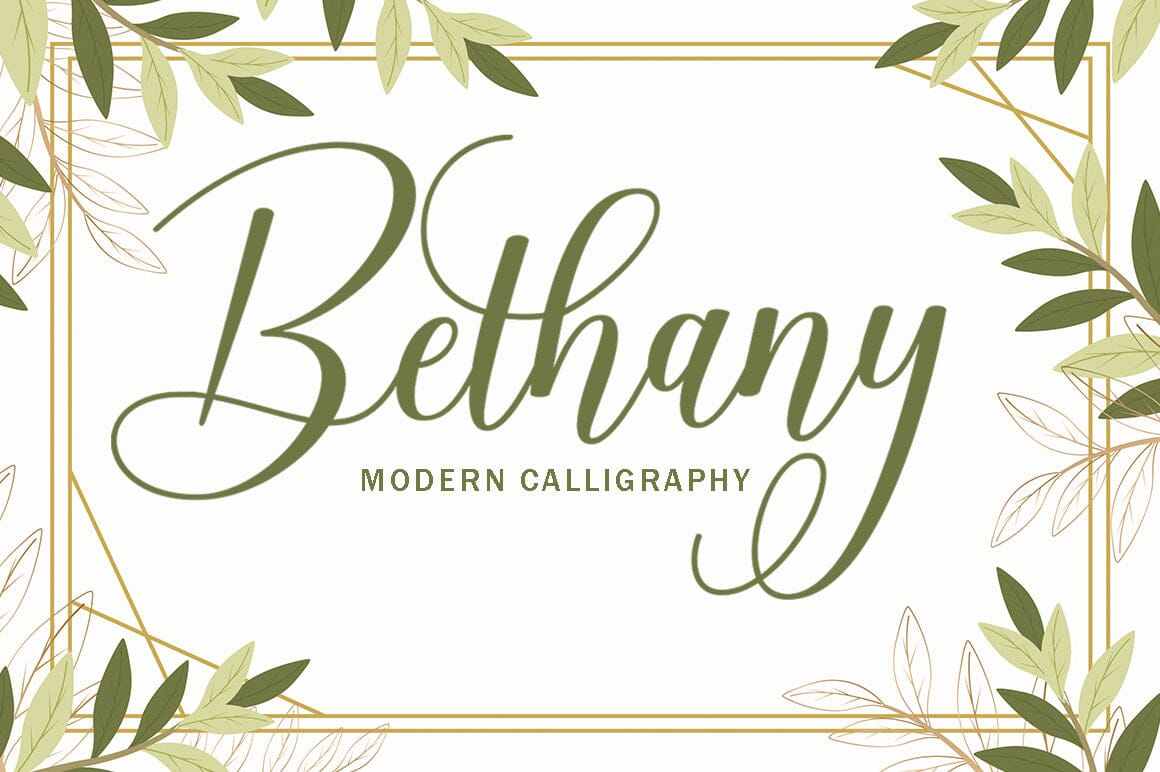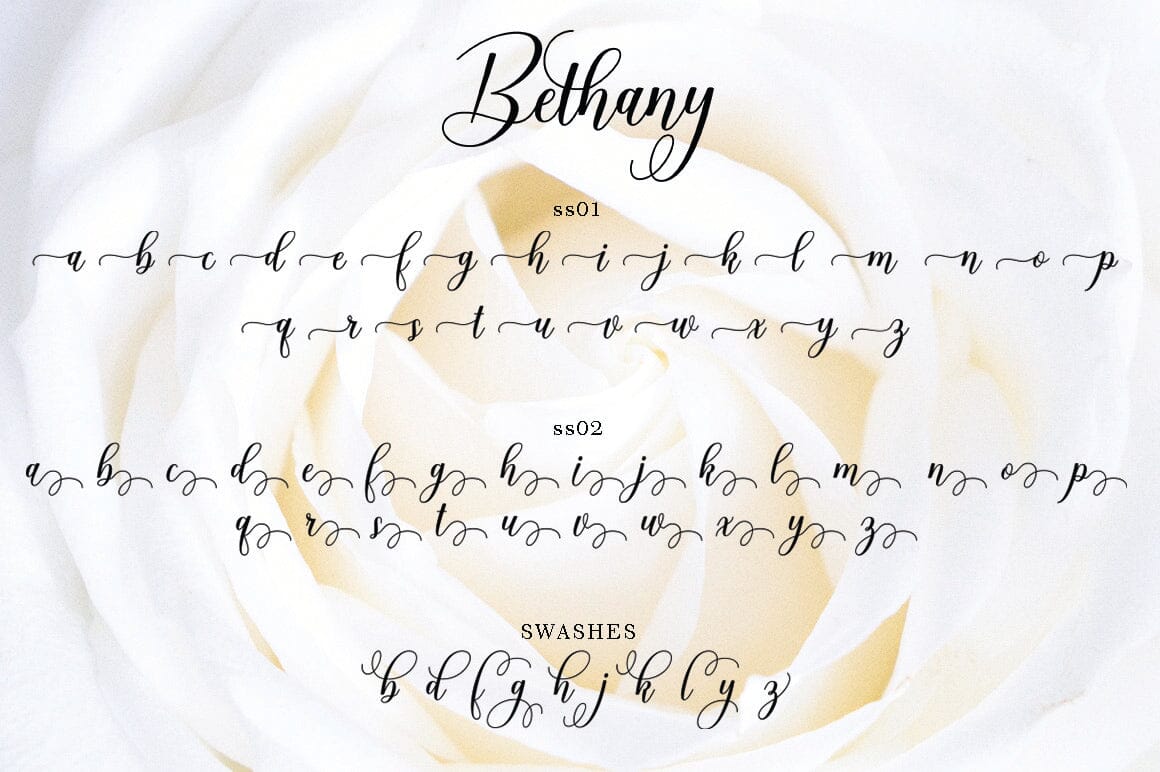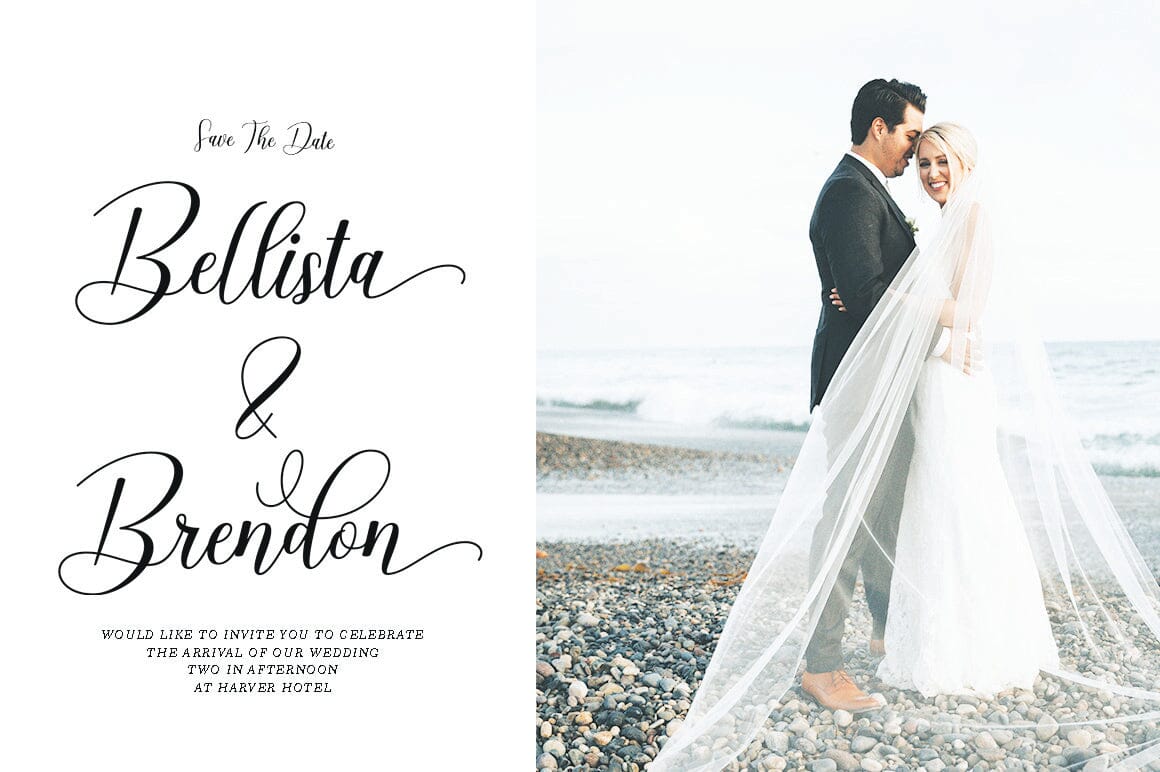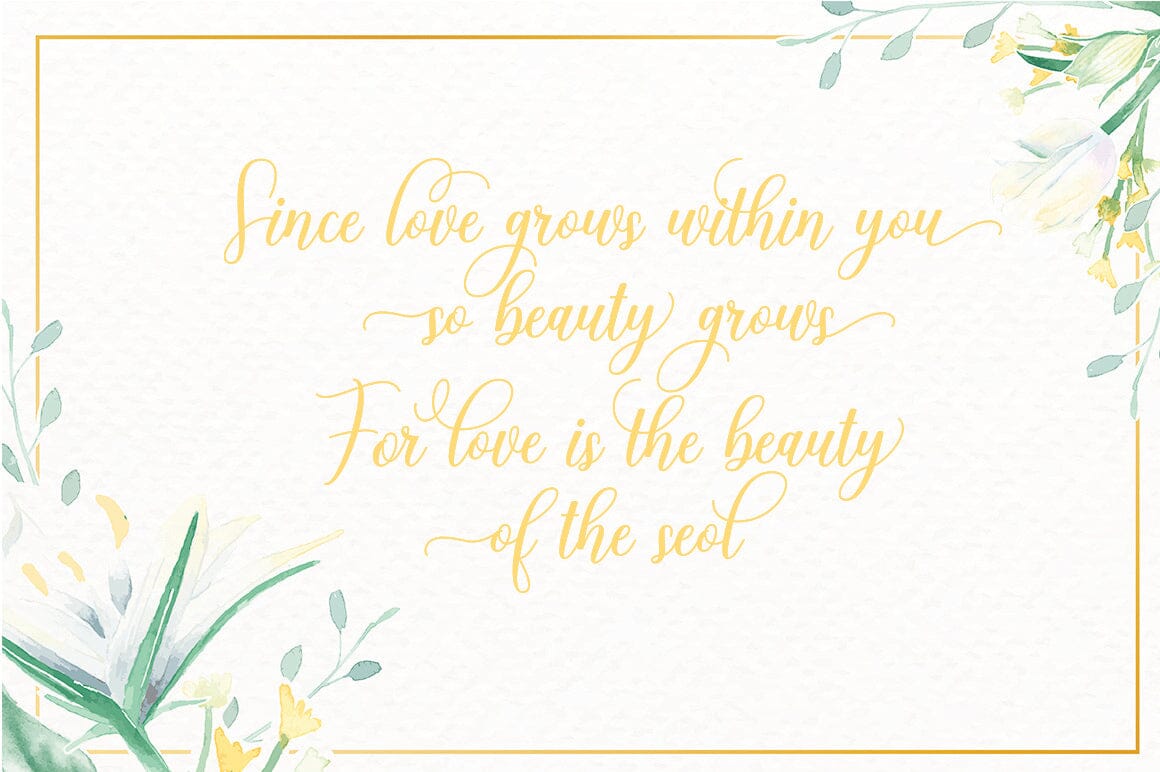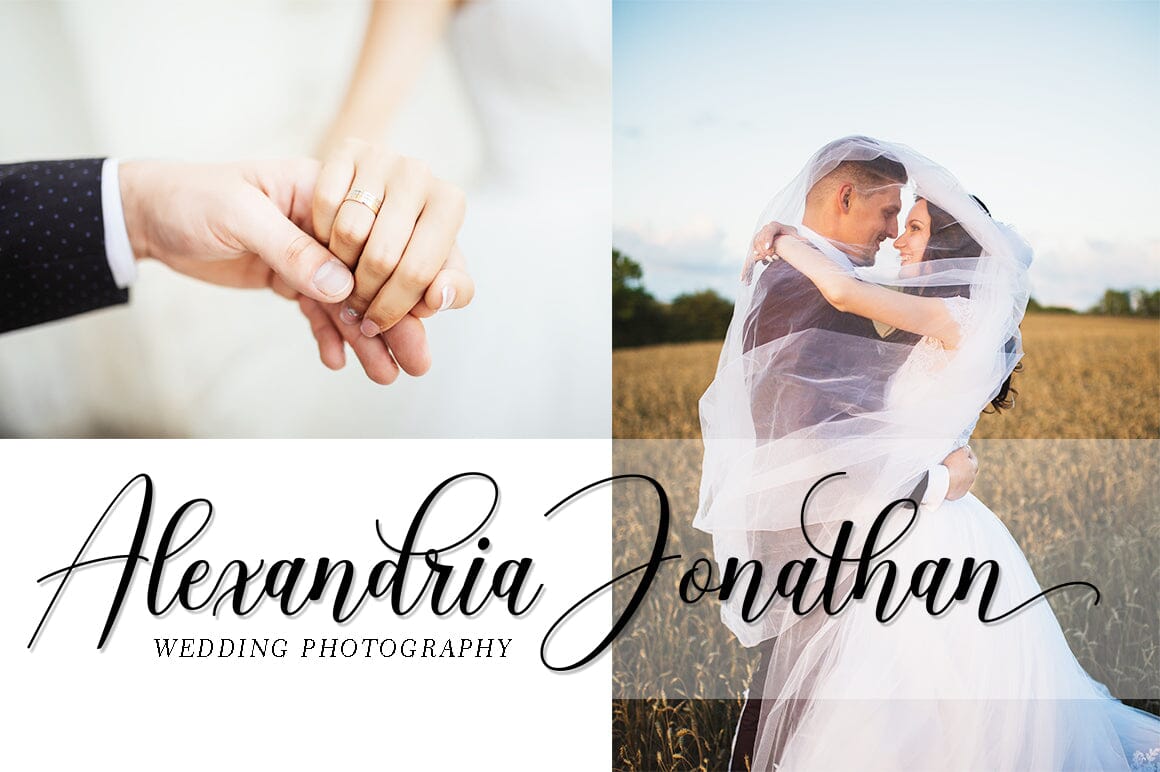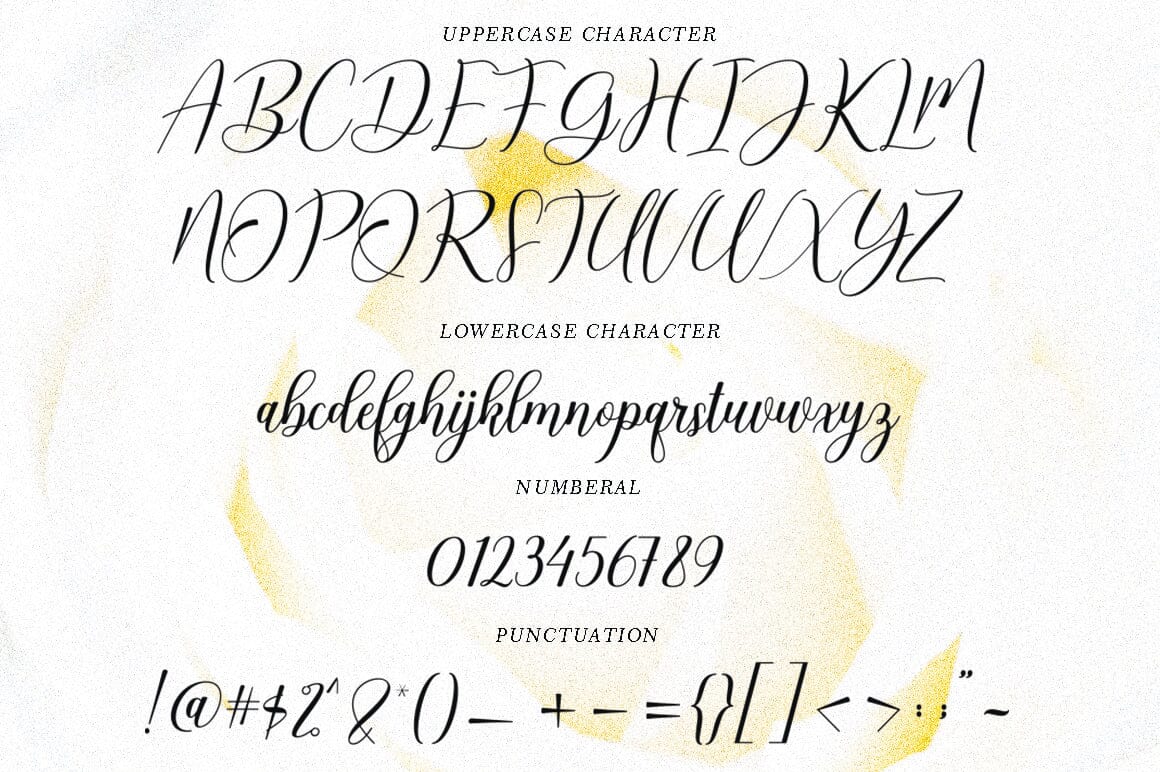
Bethany
About Bethany
INTRODUCING Bethany Script is elegant calligraphy font. This font is casual and pretty with swashes. Can used for various purposes. such as logo, product packaging, wedding invitations, branding, headlines, signage, labels, signature, book covers, posters, quotes and more. Bethany Script features OpenType stylistic alternates, ligatures and International support for most Western Languages is included. To enable the OpenType Stylistic alternates, you need a program that supports OpenType features such as Adobe Illustrator CS, Adobe Indesign & CorelDraw X6-X7, Microsoft Word 2010 or later versions.How to access all alternative characters using Adobe Illustrator: https://www.youtube.com/watch?v=XzwjMkbB-wQ Bethany Script is coded with PUA Unicode, which allows full access to all the extra characters without having special designing software. Mac users can use Font Book , and Windows users can use Character Map to view and copy any of the extra characters to paste into your favourite text editor/app.How to access all alternative characters, using Windows Character Map with Photoshop: https://www.youtube.com/watch?v=Go9vacoYmBw If you have any question, don’t hesitate to contact me by email. Thanks so much for looking and Enjoy it!